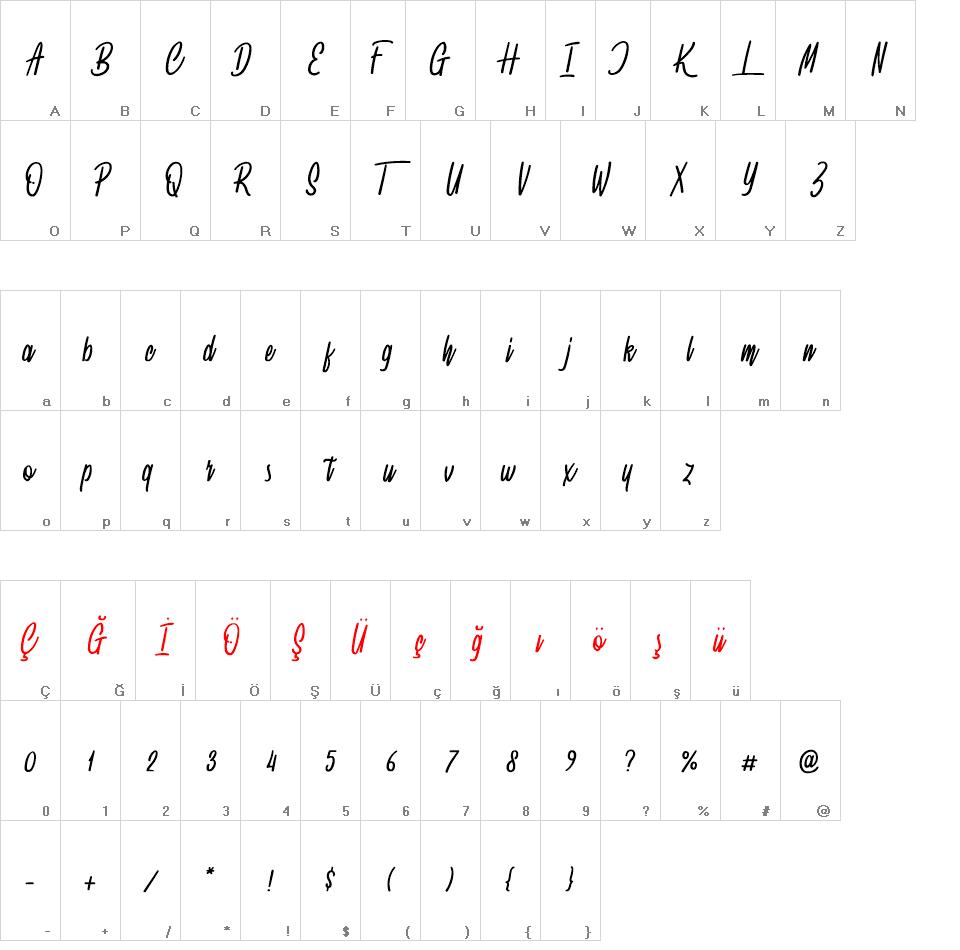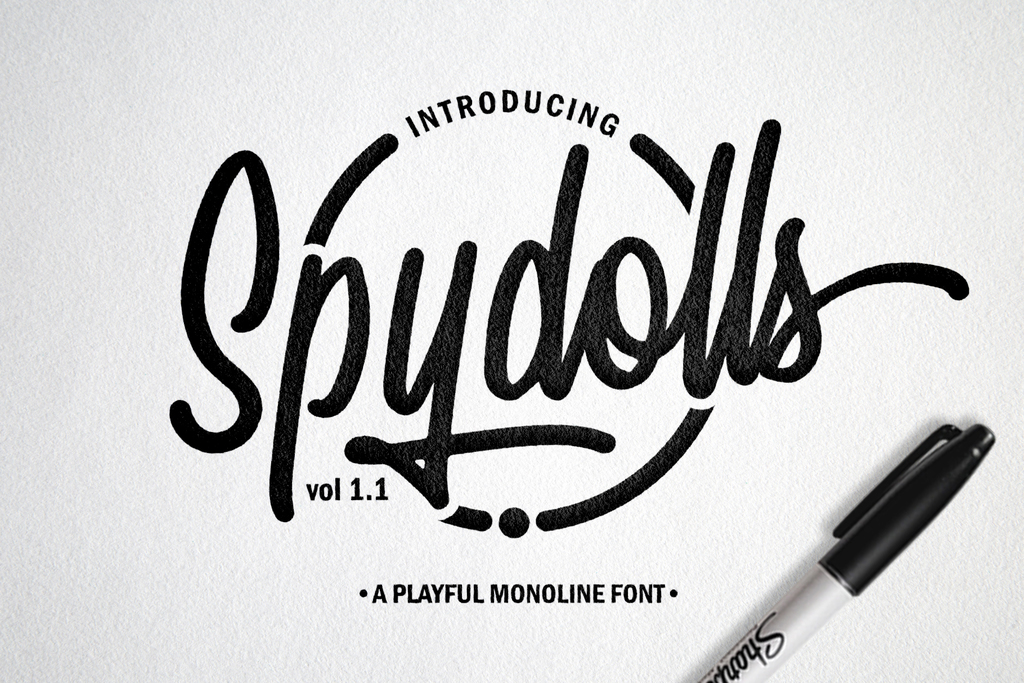
Spydolls Demo font
Introducing Spydolls a playful monoline script font inspired by the handwriting of marker pen, highly recommended for your design projects. You can use it for: logo design, t-shirt, branding, prints, and much more.